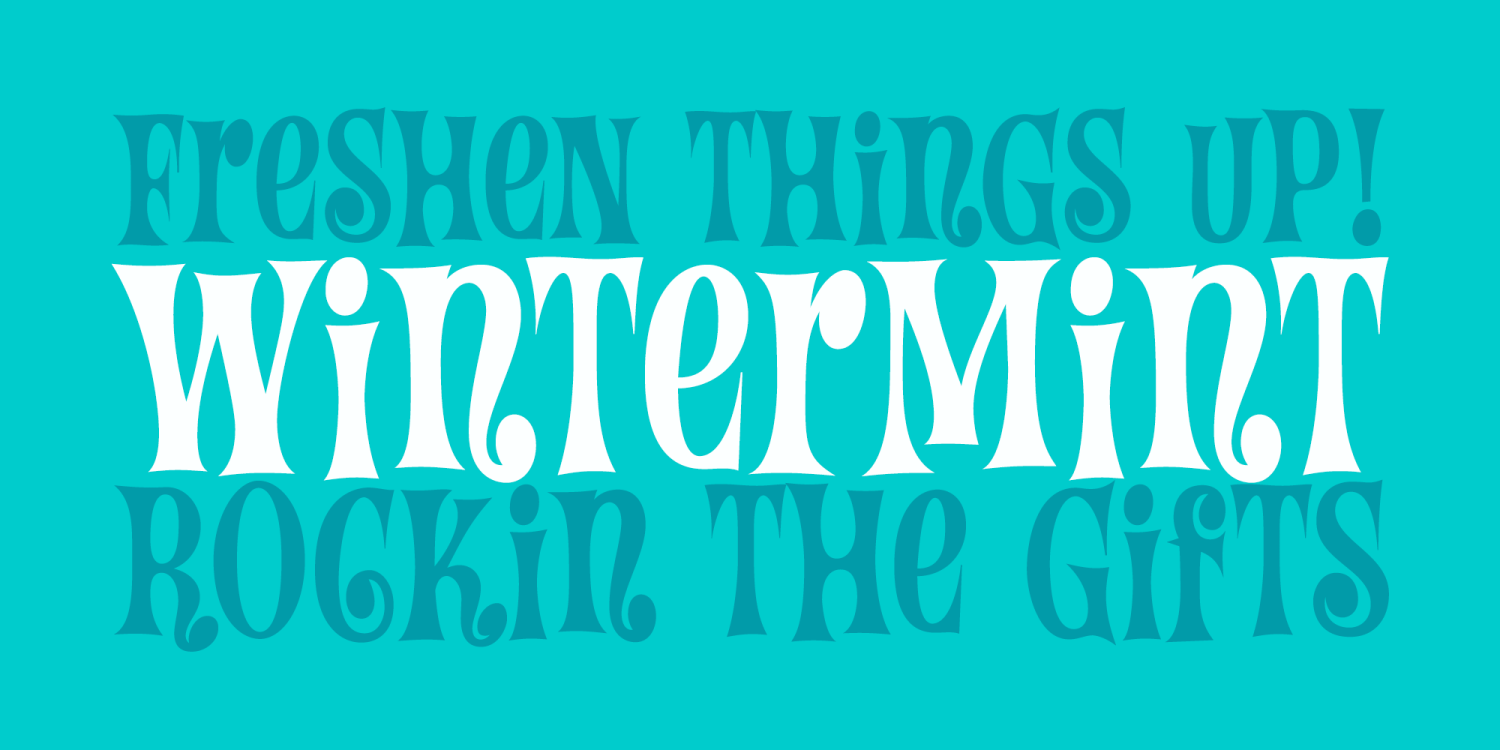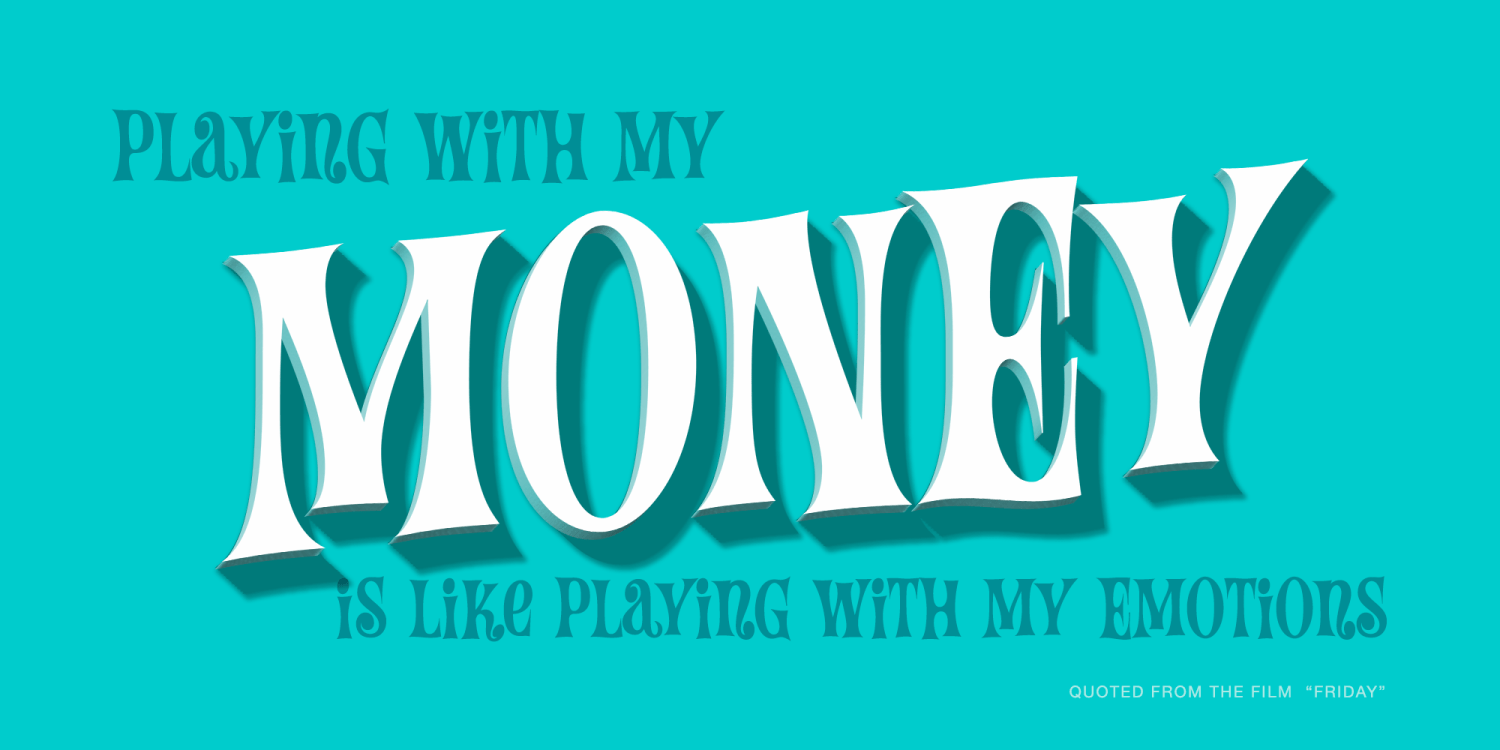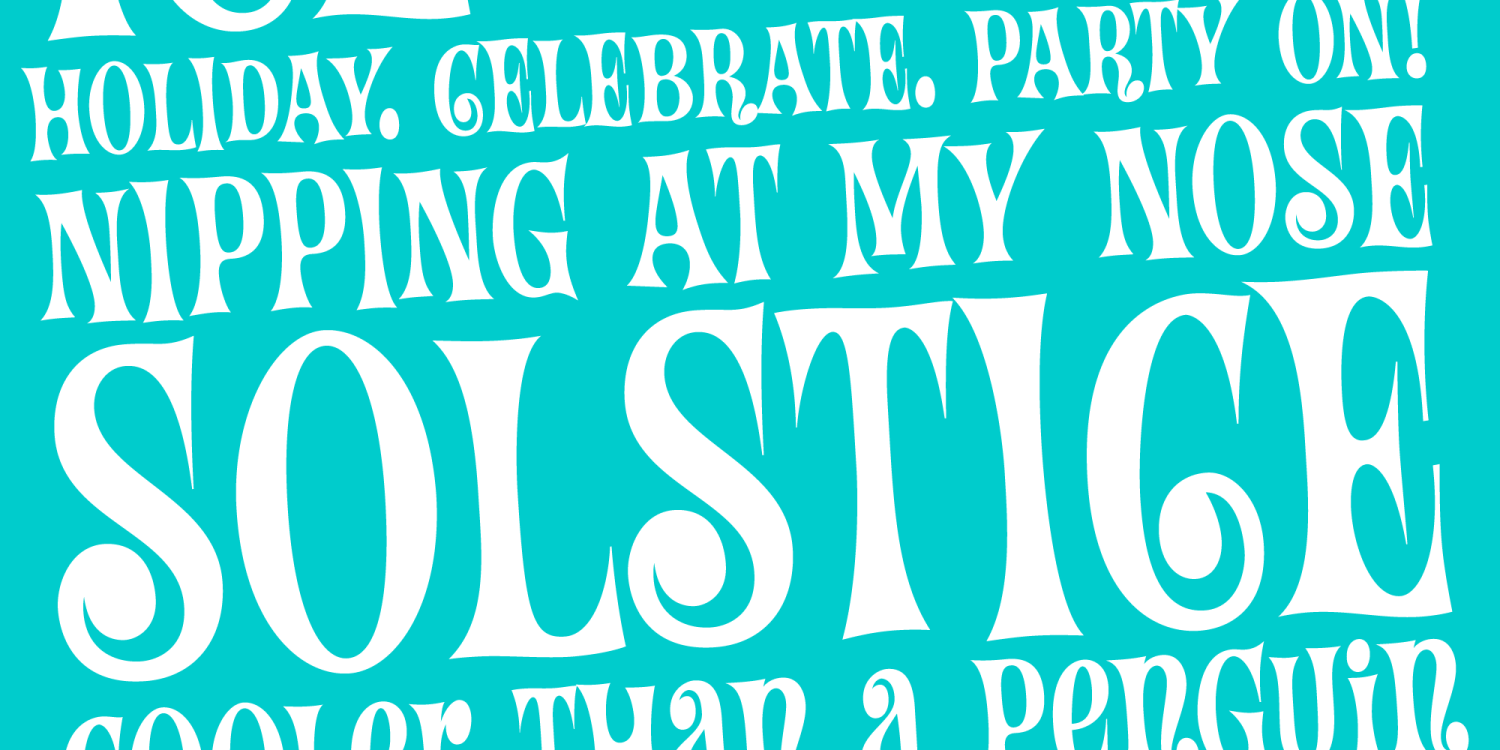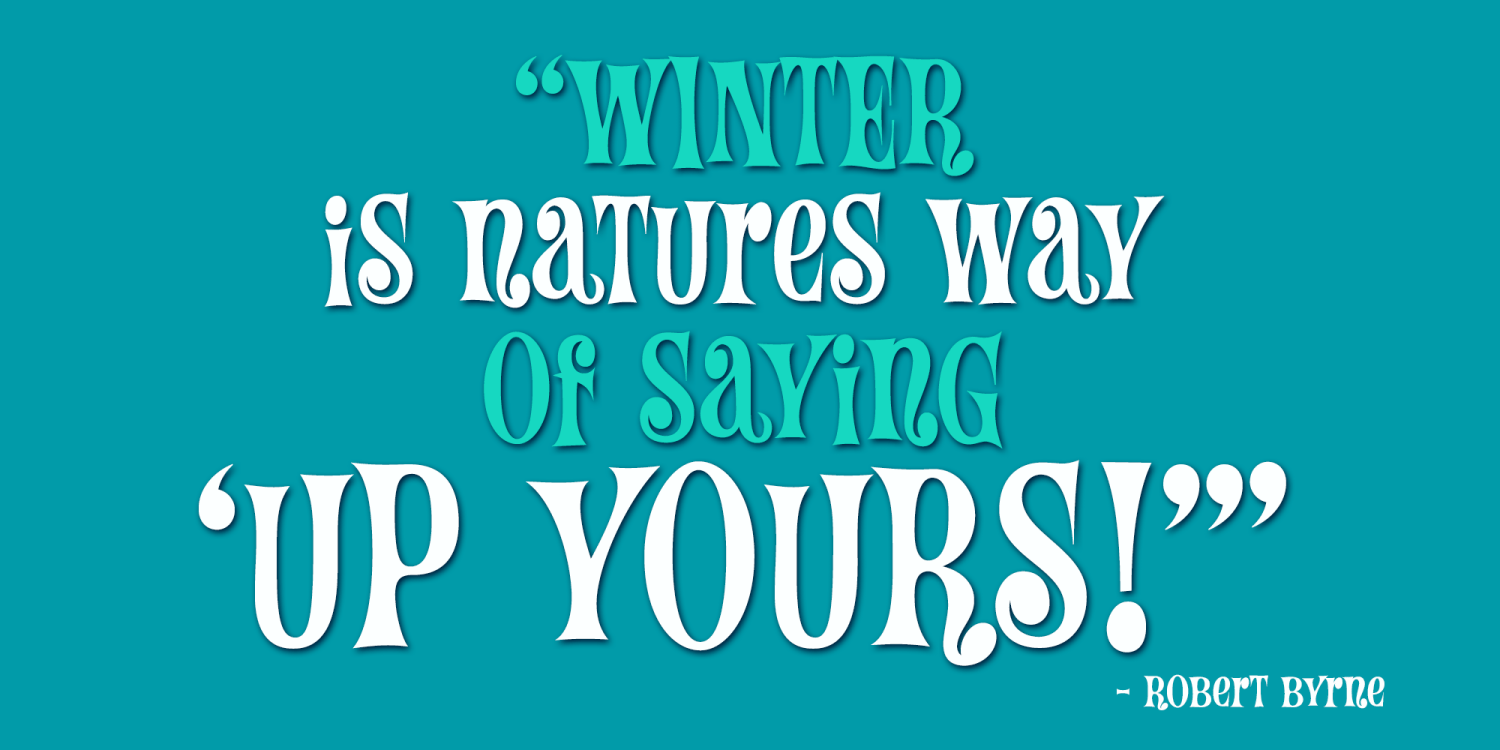
Wintermint
A funtastic and playful typestyle, Wintermint started as a digitization of a film typeface called Lori by LetterGraphics. This font is filled with bounce and liveliness taken from its original limited character set and fleshed out to a fully functional typeface.
Flare serifs along with the occasional weird and wonderful curl gives this typeface a festive holiday vibe, but it could easily blend into a psychedelic design space, or just an all out wacky groove. Give it a spin, and see where Wintermint takes you.